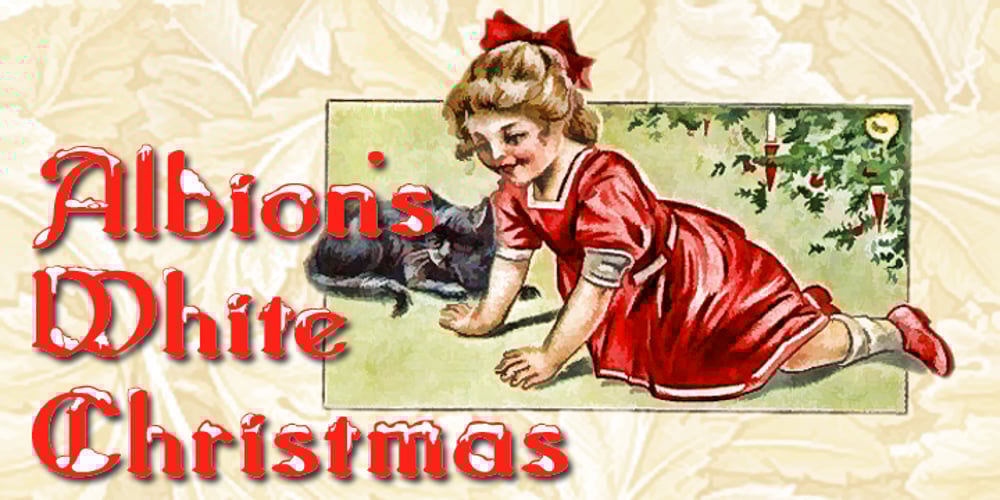
Albion’s White Christmas Font Family was designed by Paul James Lloyd and published by Greater Albion Typefounders. Albion’s White Christmas contains 1 styles and family package options. “Albion’s White Christmas” can only be described as a snowy blackletter. In the tradition of old childrens’ comics, yuletide magazine mastheads and vintage Christmas cards, it is a snow draped blackletter ideal for the winter holidays and letting in the spirit of Christmas.